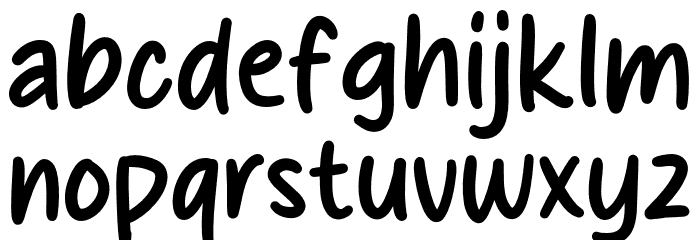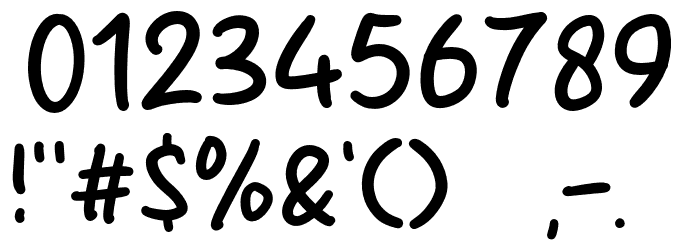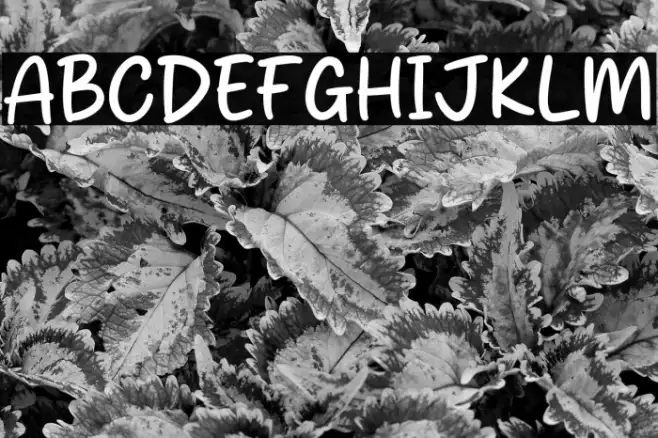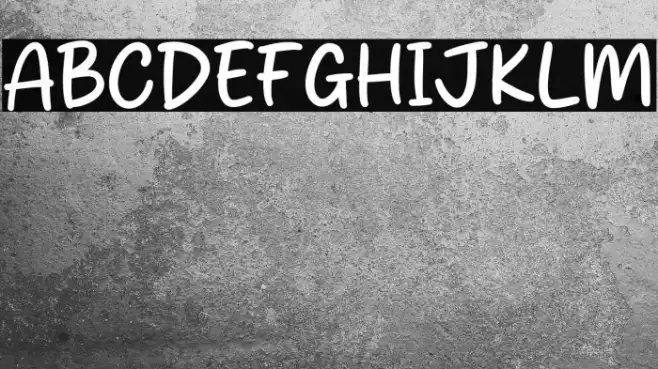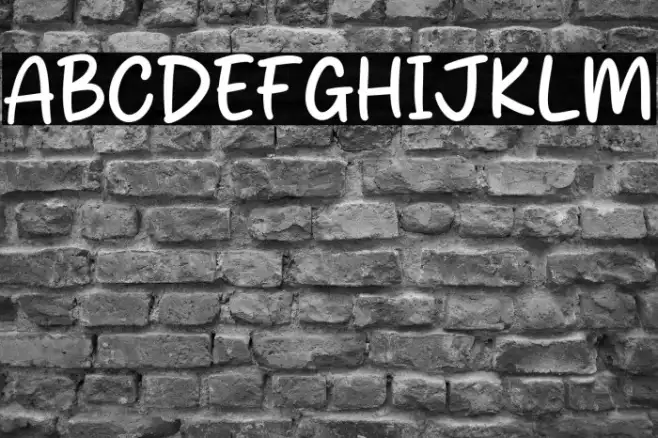
Micky House Font
This playful and whimsical font features rounded, hand-drawn characters that evoke a sense of fun and creativity. The letters have a casual, friendly appearance with smooth curves and a slightly irregular baseline, adding to its charm. The font maintains a consistent stroke width throughout, giving it a uniform look while still retaining a lively and informal style. The numerals and special characters complement the alphabet with the same playful design, making it suitable for a variety of creative projects.
A playful, hand-drawn font with rounded, whimsical characters.
- Font: Micky House
- Proposed Projects: Ideal for children's books, playful branding, greeting cards, and creative posters.
- Category: Handwritten
- Overall Style: Playful
- Use Case: Logos, Posters, Children's books